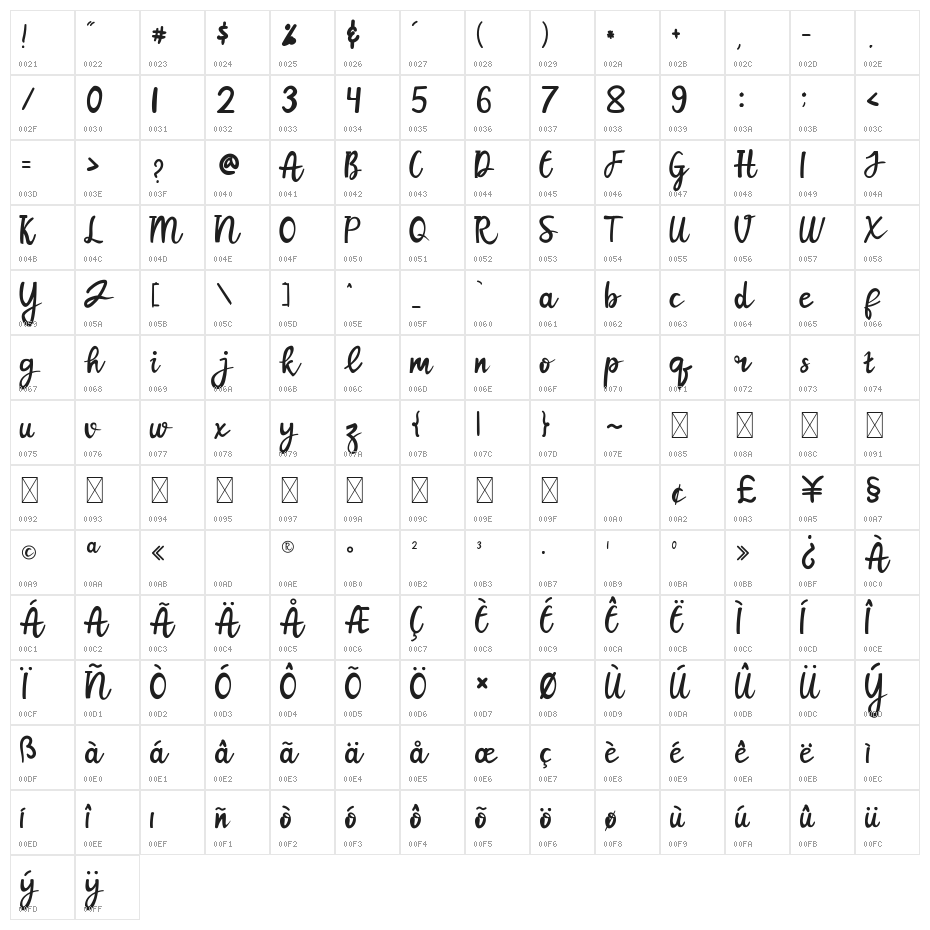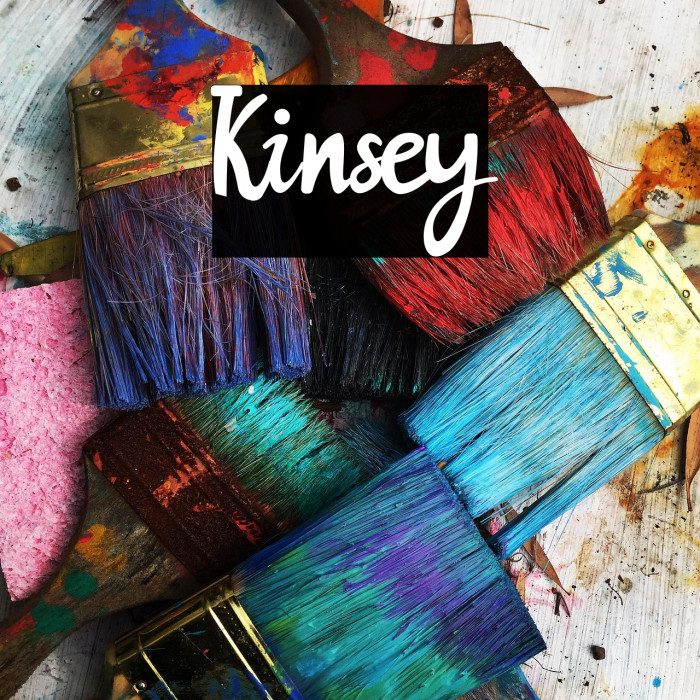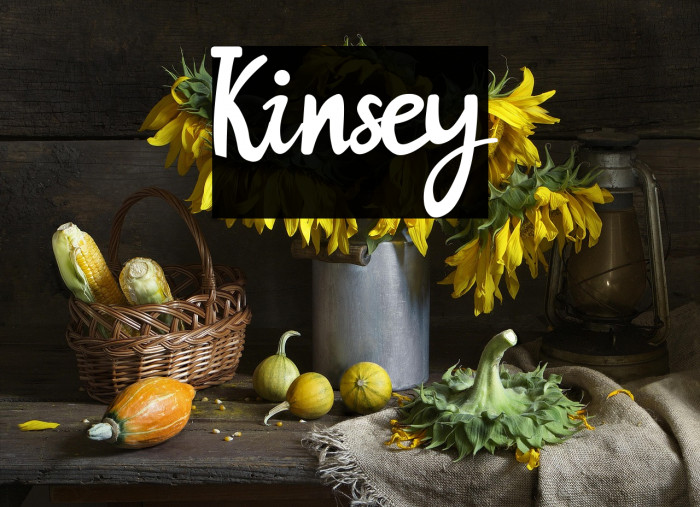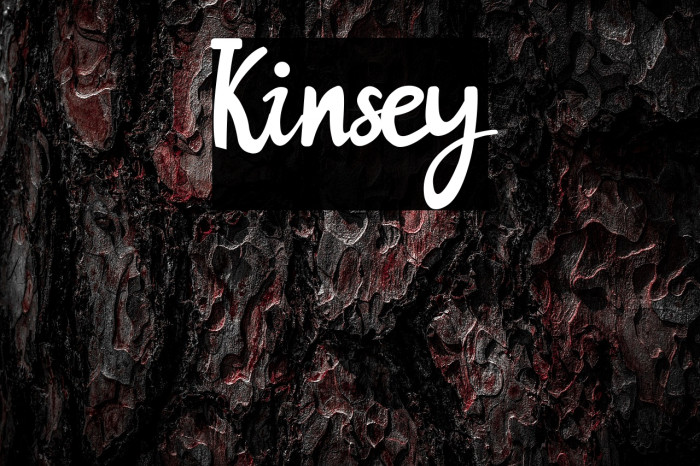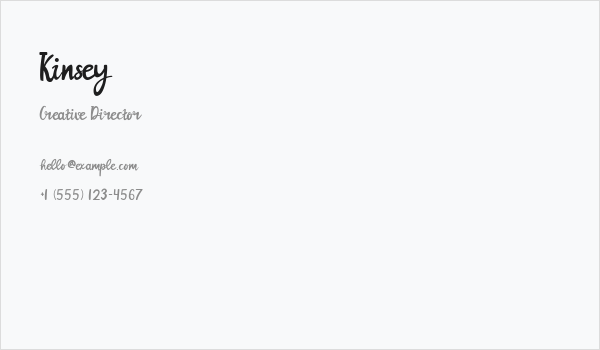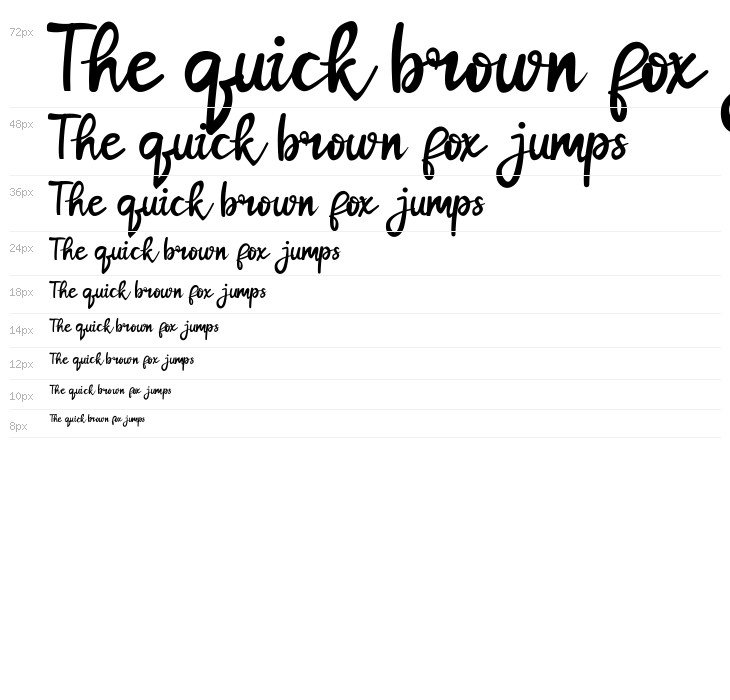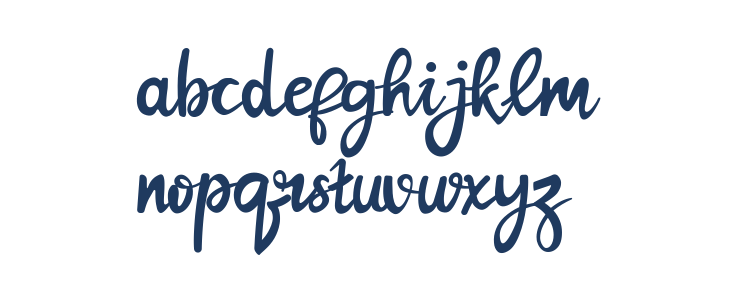
Kinsey Font
Kinsey Description
This font features a lively and expressive script style, characterized by its fluid and connected letterforms. The uppercase letters exhibit a playful elegance with varying stroke widths, while the lowercase letters maintain a consistent flow, enhancing readability. The numerals are bold and clear, complementing the overall dynamic appearance. Special characters are thoughtfully designed to match the font's energetic style, making it suitable for creative and informal applications. The font's unique personality is ideal for projects that require a touch of whimsy and charm.
| Proposed Projects | Ideal for greeting cards, invitations, branding, and social media graphics. |